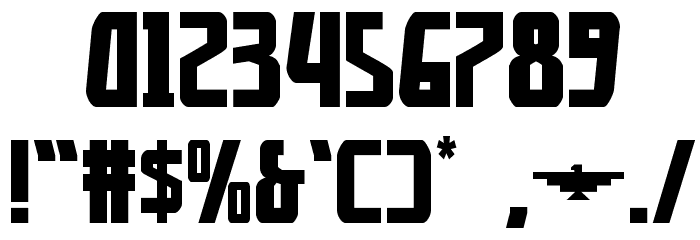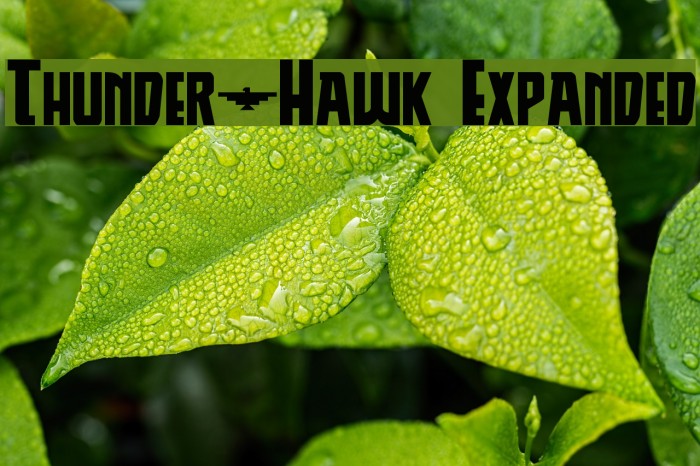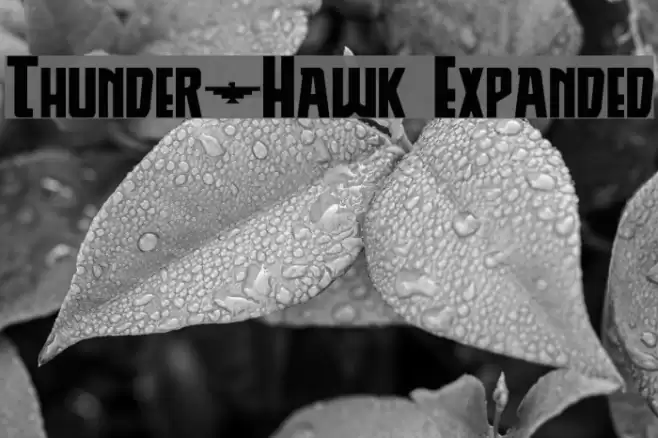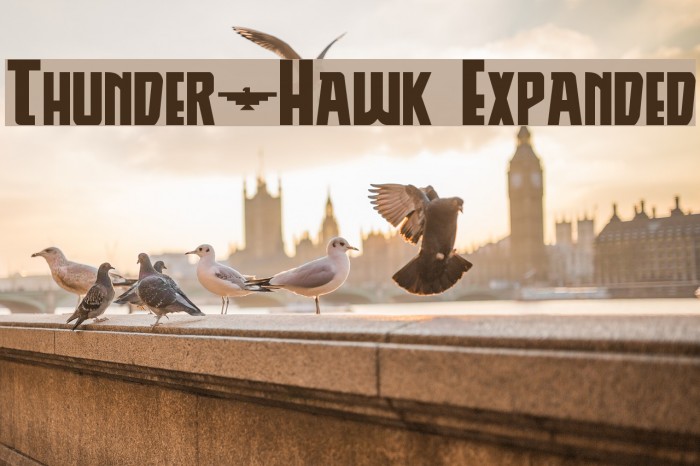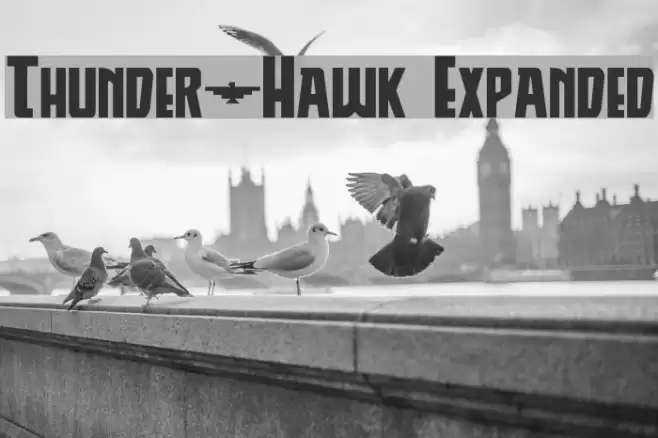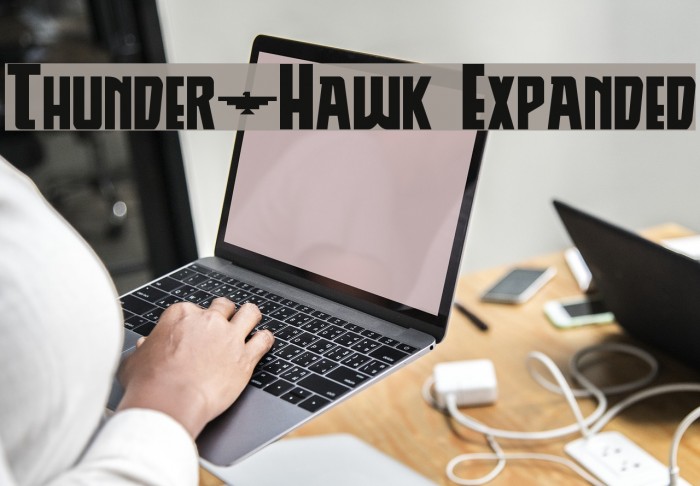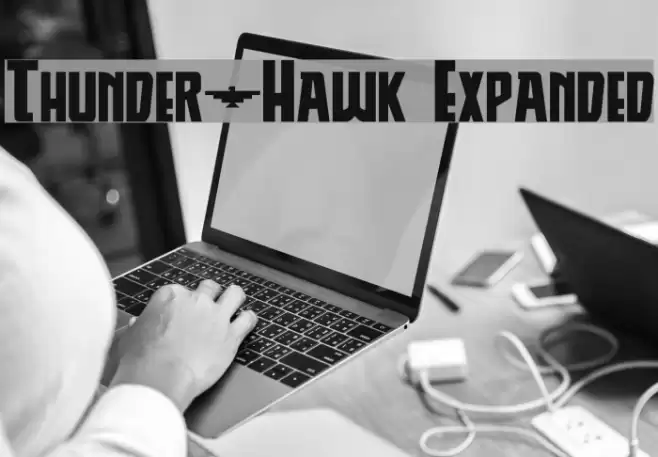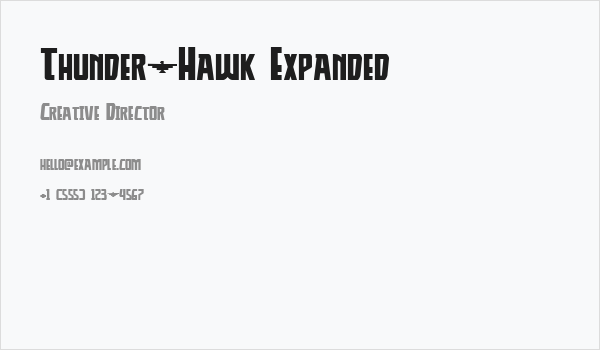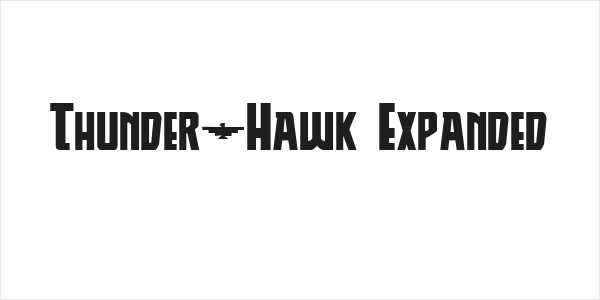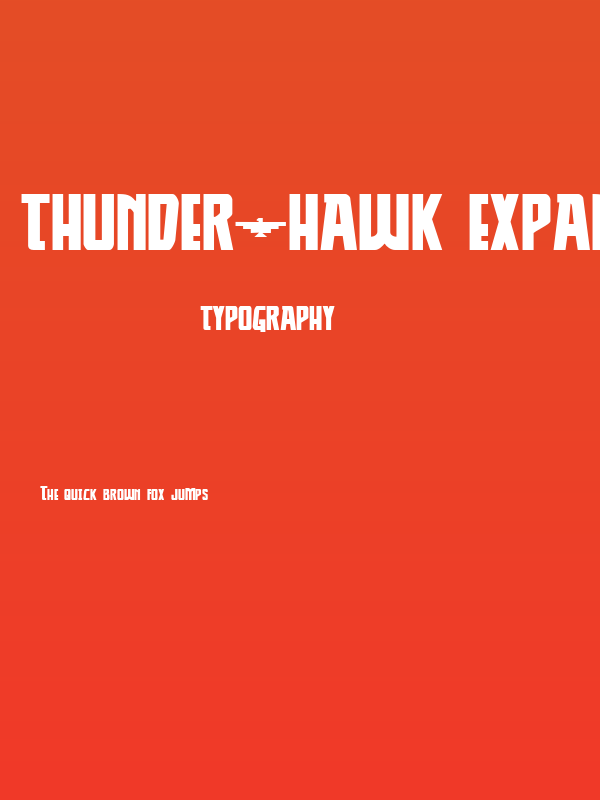
Thunder-Hawk Expanded Font
Thunder-Hawk Expanded Description
This font features a bold and striking design with an expanded width, making it ideal for attention-grabbing headlines and impactful displays. The characters are constructed with sharp, angular lines and a geometric style, giving it a modern and assertive appearance. The uppercase letters are particularly prominent, with a uniform height and consistent stroke weight, while the lowercase letters maintain the same boldness, ensuring readability and cohesion across different text sizes. The numerals are equally bold, designed to stand out in any context. Special characters are included, maintaining the same stylistic approach, which adds versatility to the font's application. The overall design is clean and powerful, suitable for projects that require a strong visual presence.
| Proposed Projects | Ideal for branding, posters, headlines, and any design requiring a strong visual impact. |